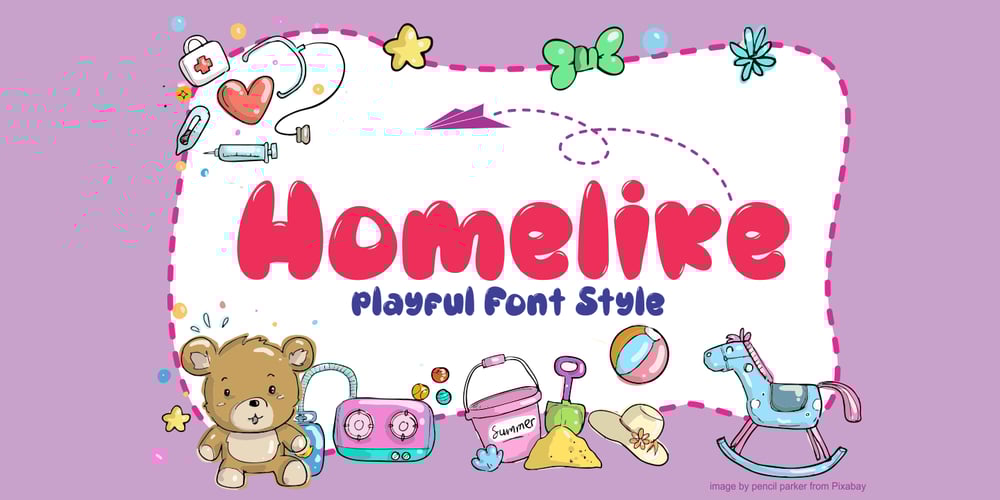
Homelike Font Family was designed by Daddi Daryawan and published by Creativework Studio. Homelike contains 1 styles and family package options. Homelike is a bold display font, carefully handcrafted to become a true favorite. Its casual charm makes it appear wonderfully down-to-earth, readable and, ultimately, incredibly versatile. This font will look outstanding in any context, whether it’s being used on busy backgrounds or as a standalone.